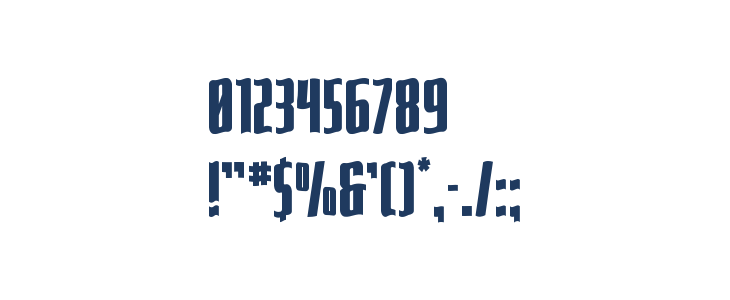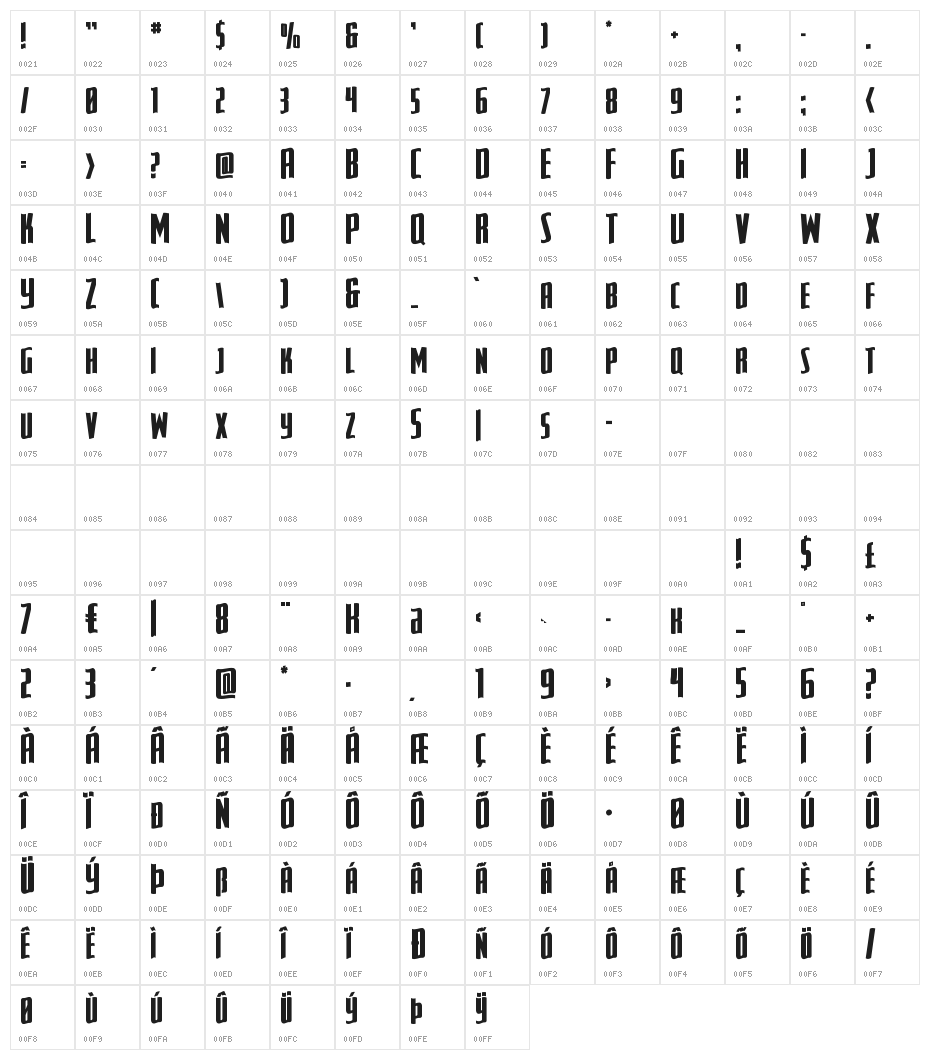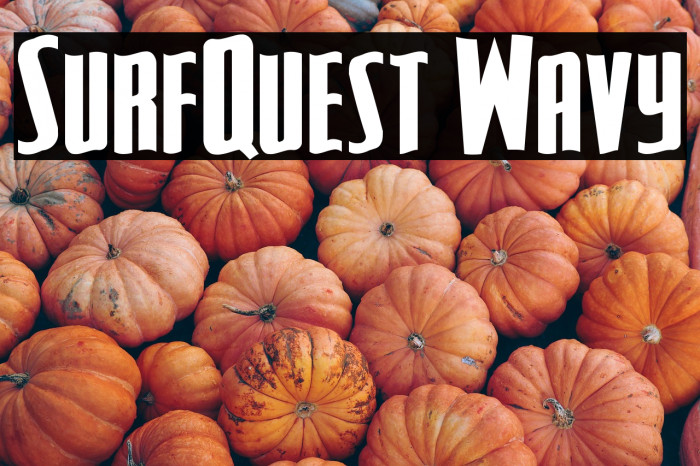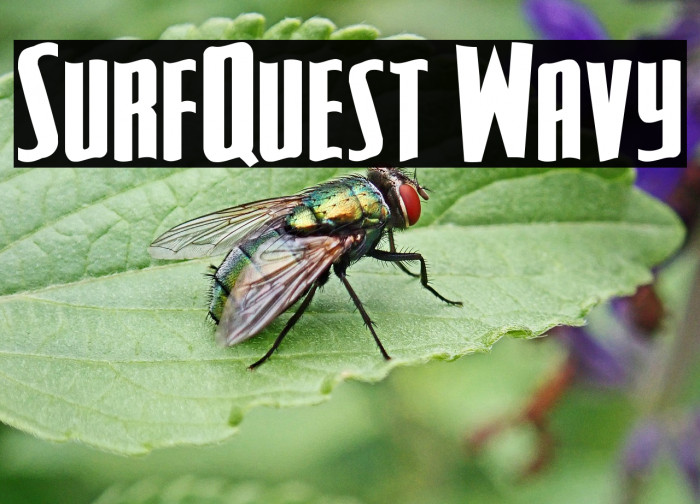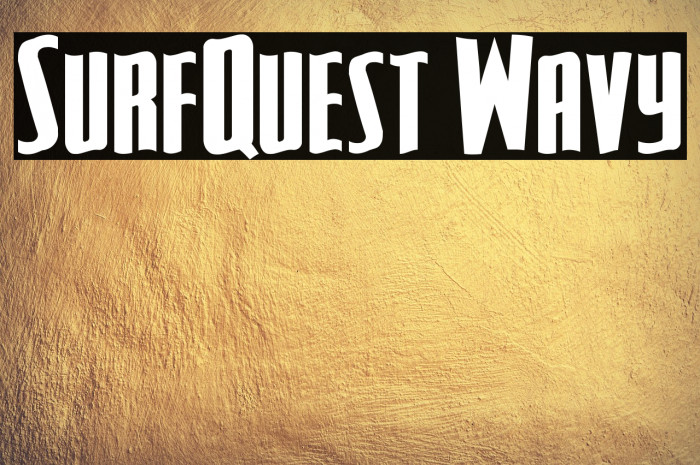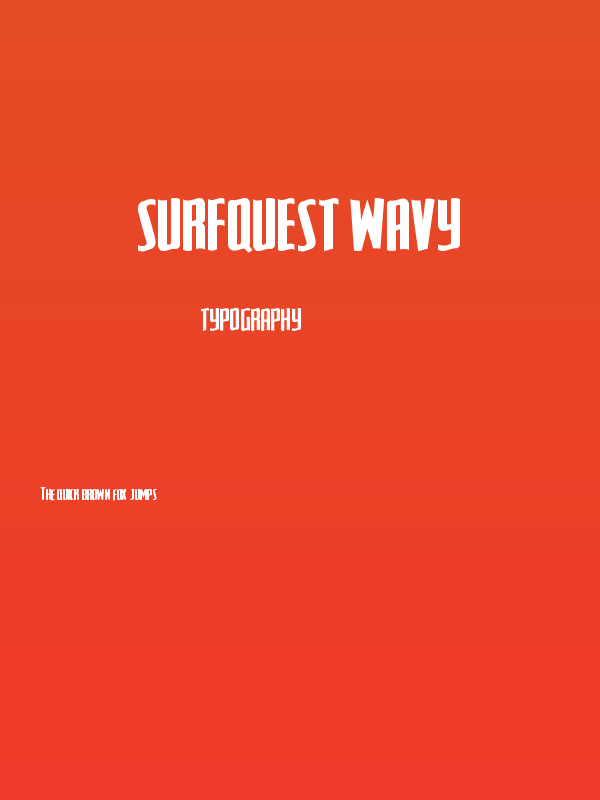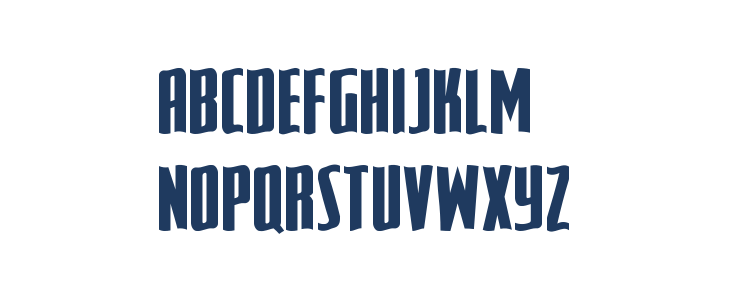
SurfQuest Wavy Font
SurfQuest Wavy Description
This font features a bold and dynamic style with a wavy, flowing appearance that gives it a sense of movement and energy. The uppercase letters are tall and narrow, with exaggerated curves and sharp edges that create a striking visual impact. The lowercase letters maintain the same wavy characteristics, ensuring consistency throughout the typeface. Numbers and special characters are designed to match the overall aesthetic, making them suitable for a variety of creative applications. The font's unique style makes it ideal for projects that require a playful yet bold statement.